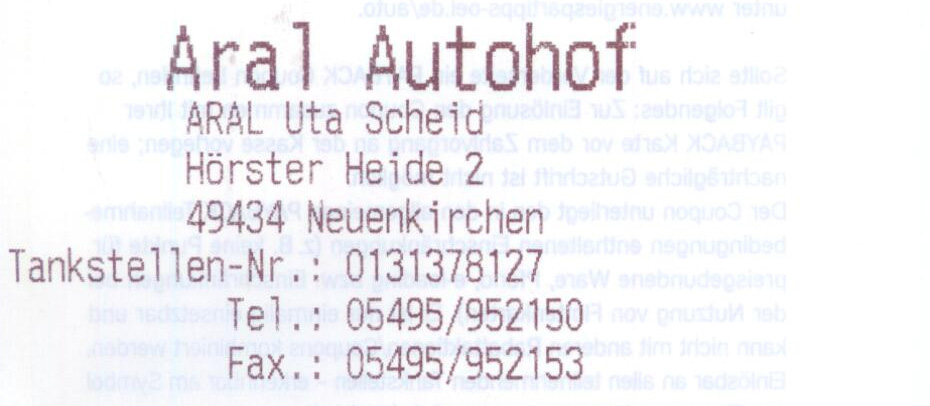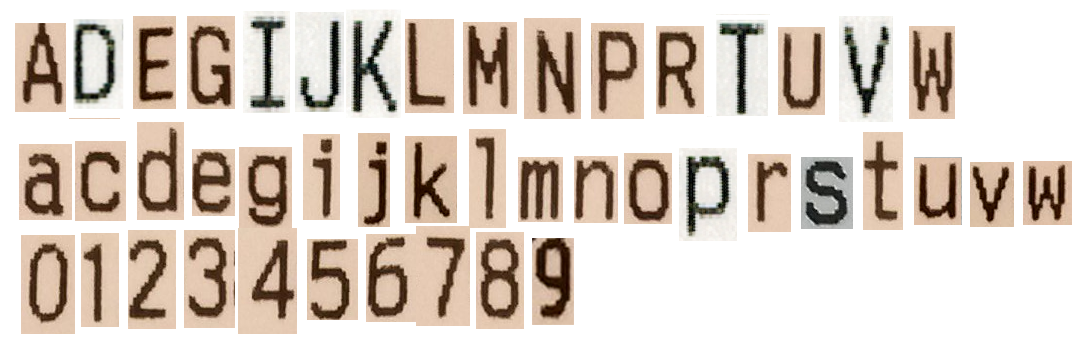
This font is used by a machine to print entry tickets. I found Letter Gothic Std Bold to be the most similar, but there are still differences, for instance in the letters ‘j’ and ‘J’…
Here’s an extra sample. Might help!
Finding an exact match is going to be pretty tough, as this font is likely installed on the printer and not a font you could use on your computer.
Check out this list, there may be something there that would work: